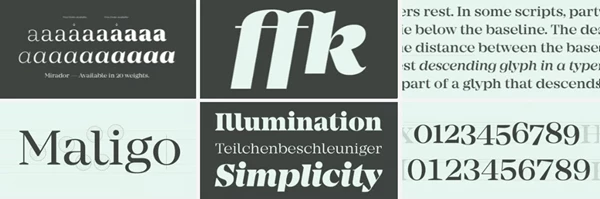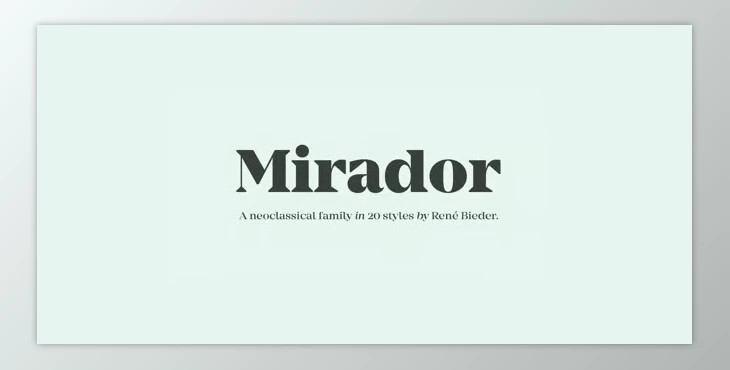
The Mirador Font Family is an elegant neoclassical typeface suitable for any design. It is great for editorial design, branding, and UI. This modern take on high-contrast typefaces retains all the elegance and tradition, making it stylish for all time.
The font may look like a display font, but its proportions and other features make it a reliable workhorse even at smaller sizes. This elegant typeface family comes with 10 weights (and their corresponding italics) and includes many OpenType features, such as ligatures and alternates. The Mirador font family is beautiful yet practical, making it one of the best font choices for your next design.